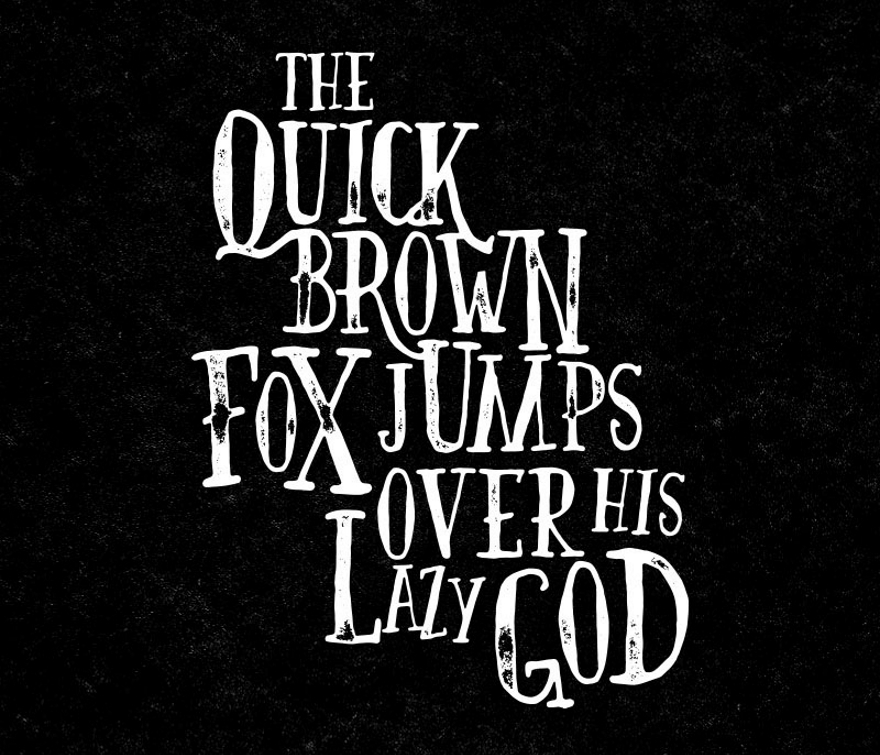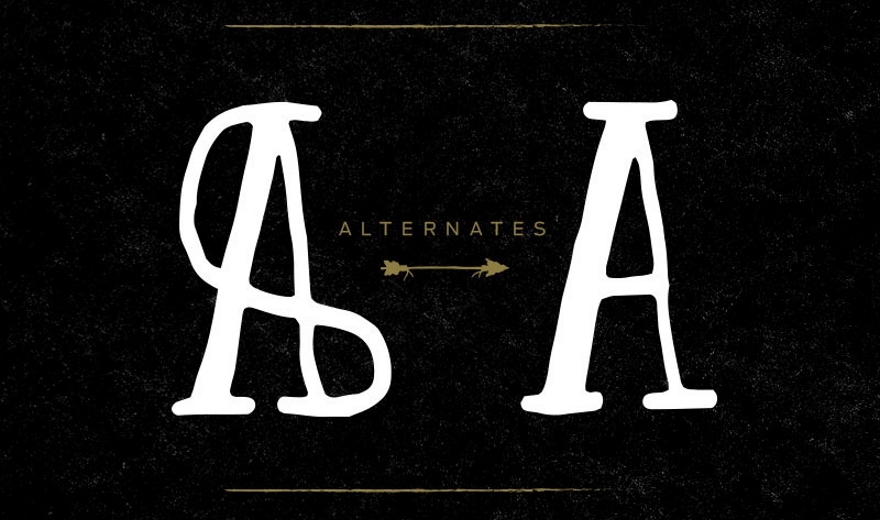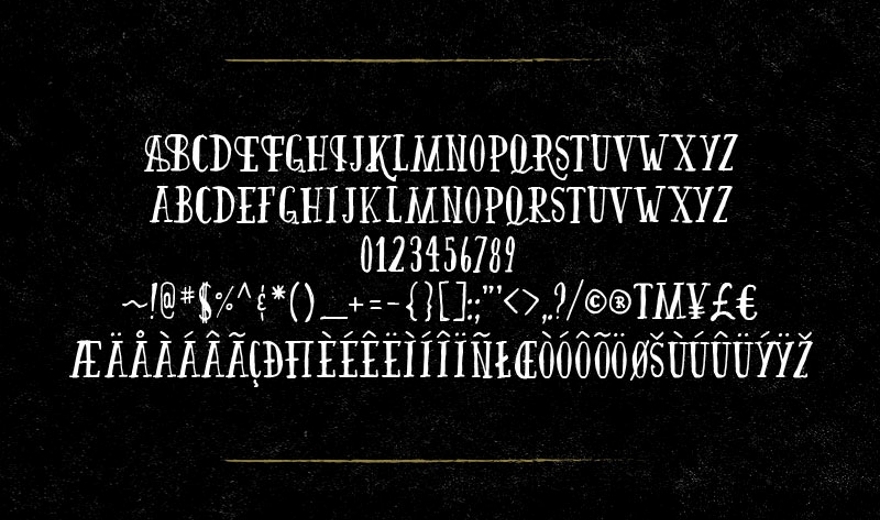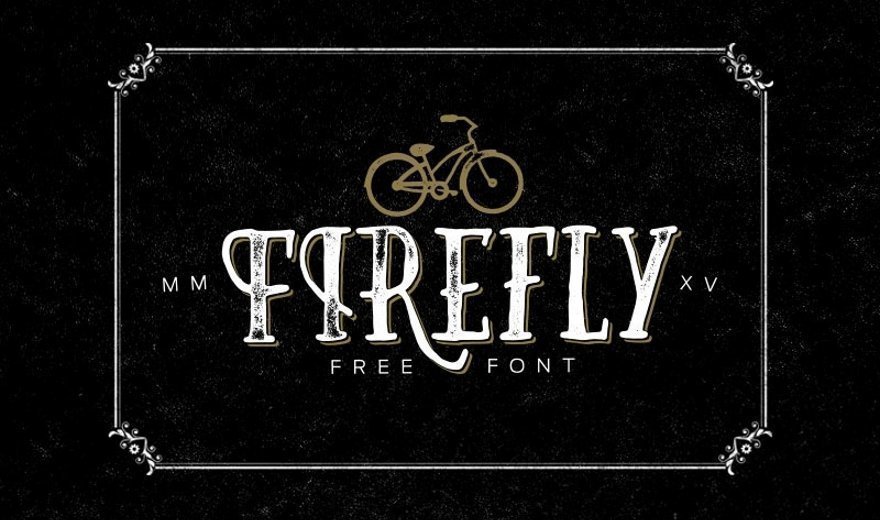
Download Firefly - a free vintage handwriting font with a full set of glyphs and few alternatives. This free serif lettering font supports only Latin characters. Free graphic design font Firefly comes with loads of personality & charm works great for quotes, logos, posters, headlines, t-shirts and more!